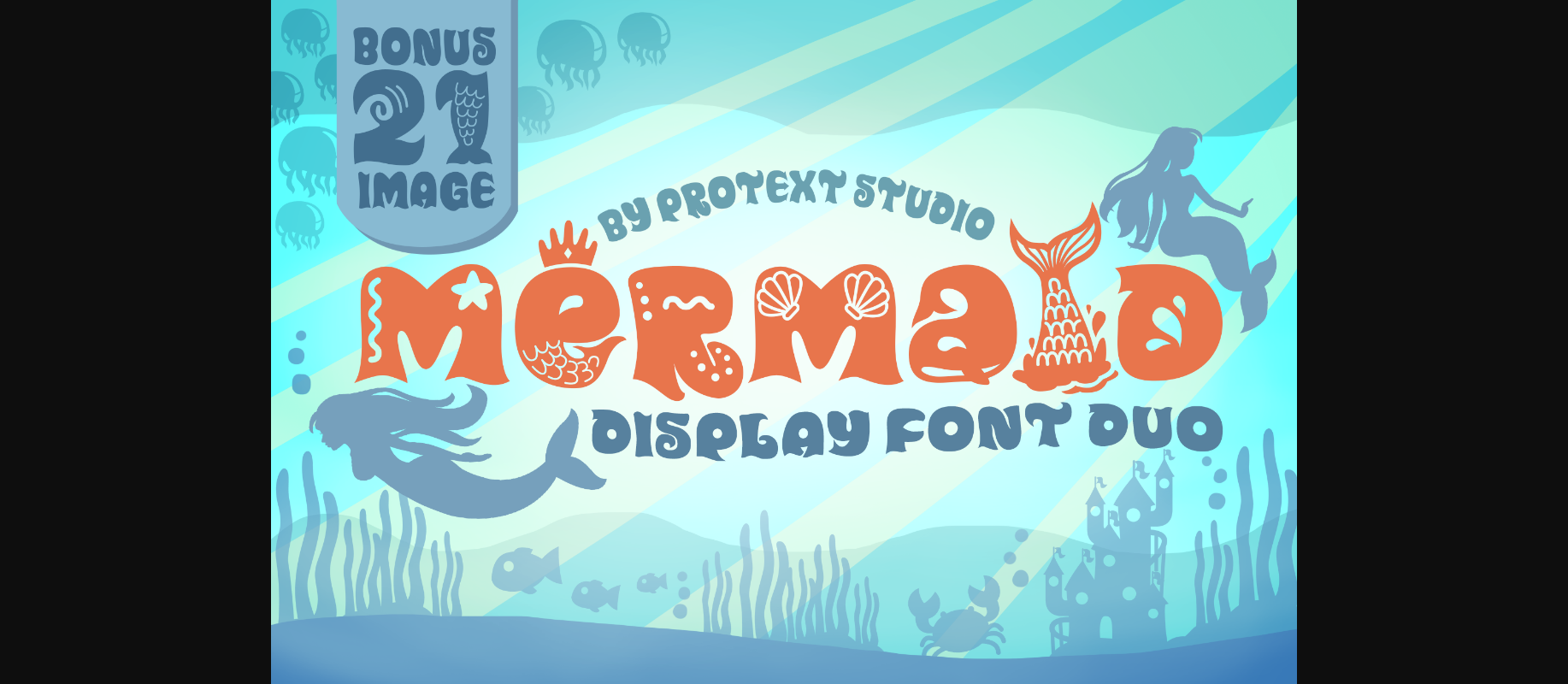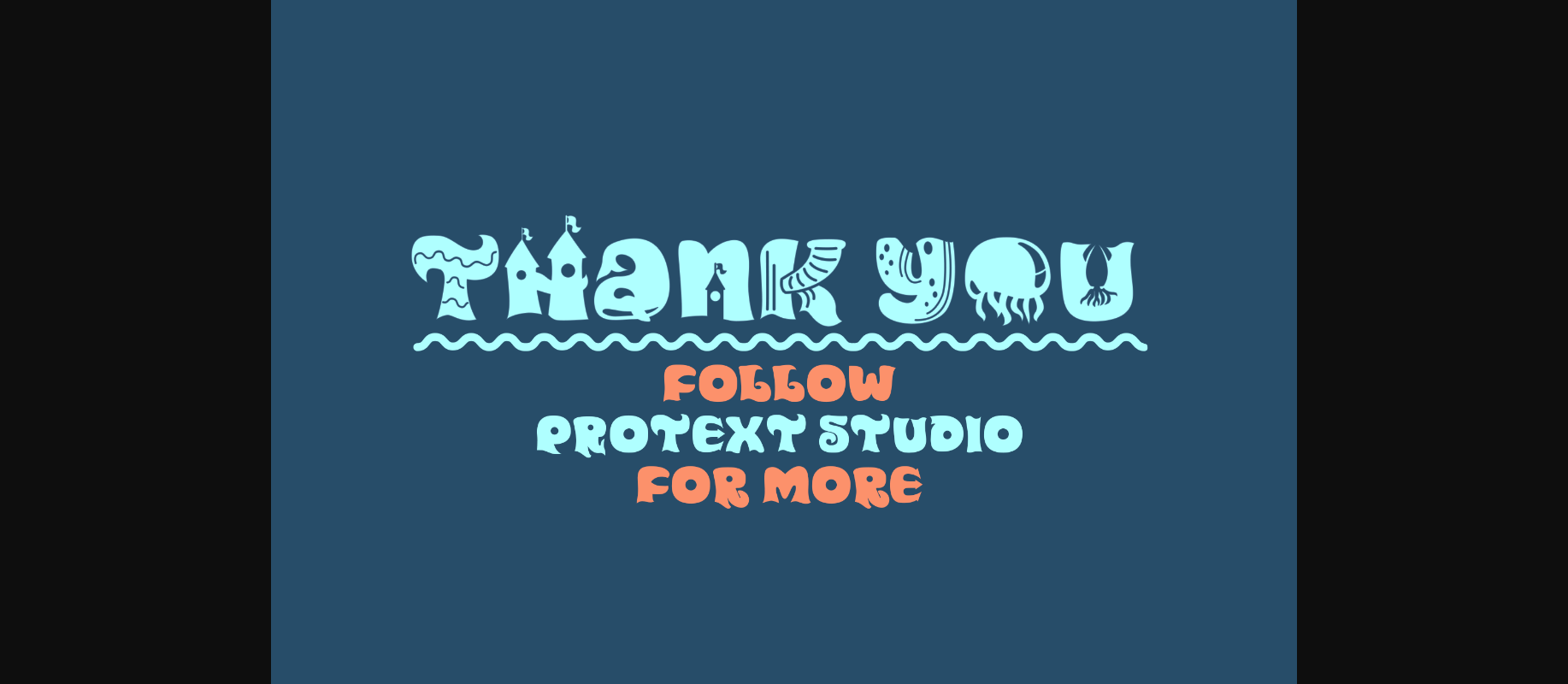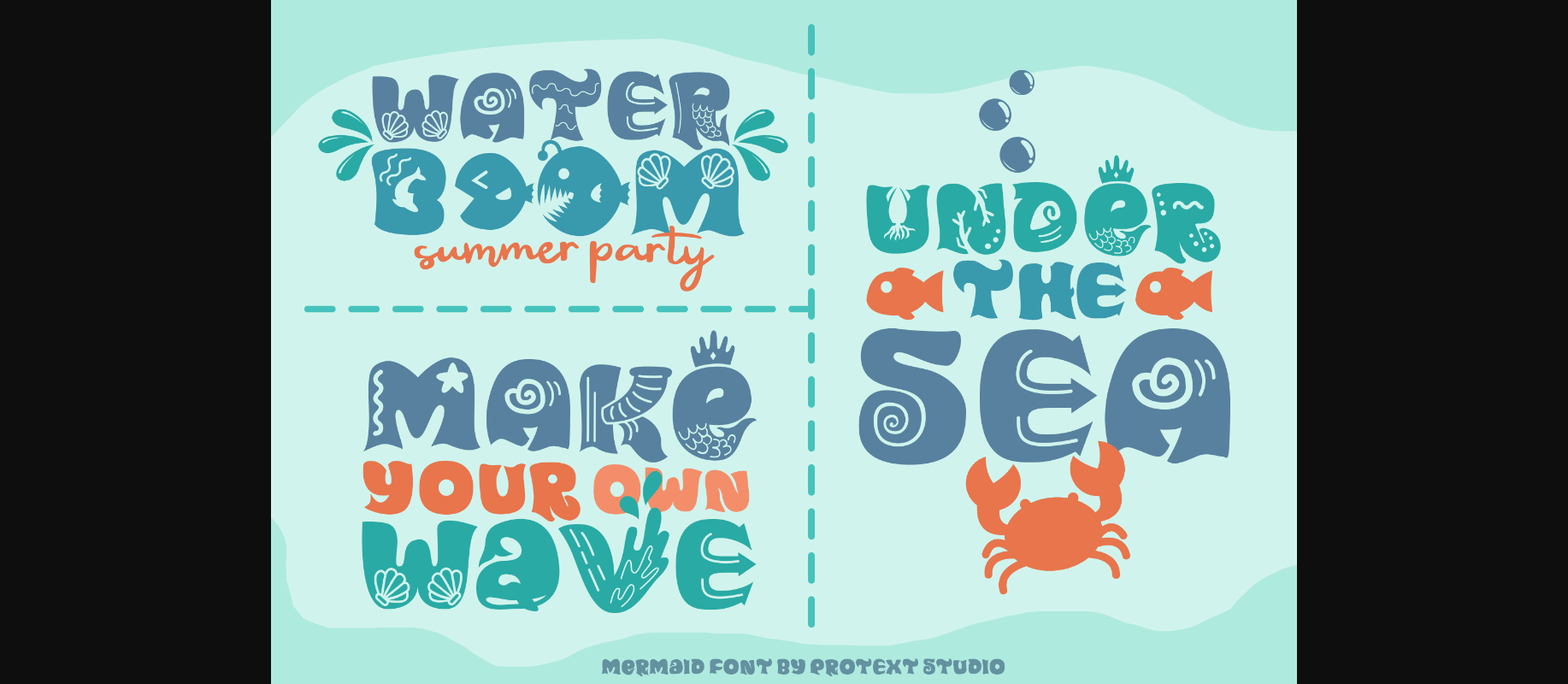
About Mermaid Font
Mermaid is a lovely and cute display font. These fonts are ideal for adding a fun and charming touch to your craft, especially for those who need a beach and ocean vibe. This download comes with two fonts, and 21 PNG illustration images as a FREE BONUS, and comes just in time for summertime!